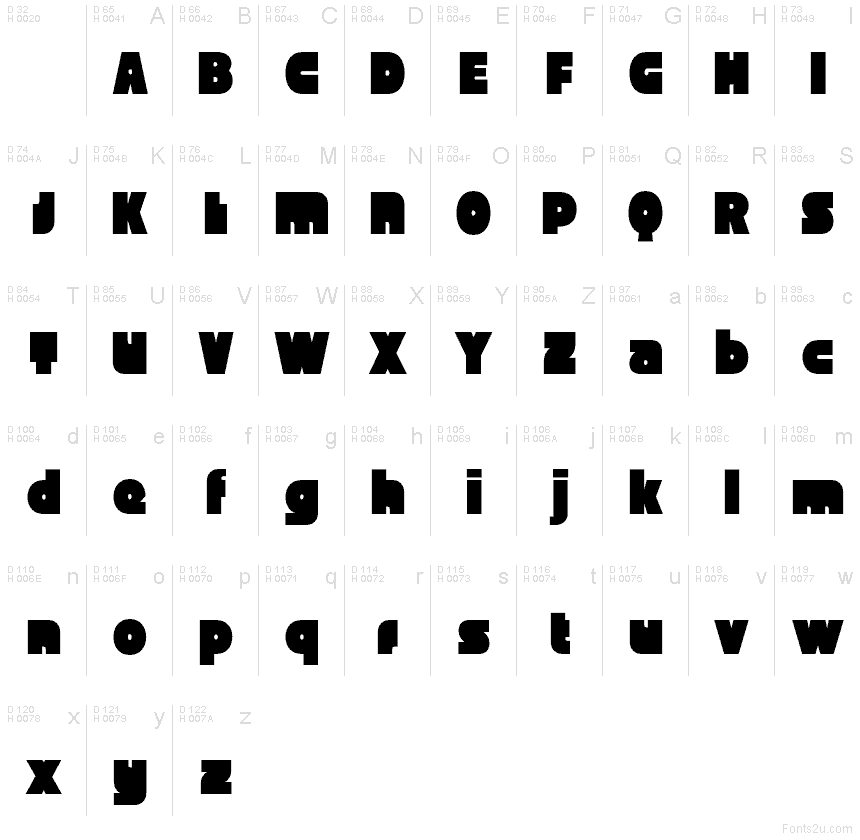
CS Anders Regular Demo
CS Anders font by Craft Supply Co. is a bold geometric display typeface. It has a minimalistic and modern structure giving it a much cleaner aesthetic. The font looks quite balanced in design making it very unique in its visual appearance as well as impact. Access this free sans serif font to give your branding or technological projects an exceptional look.
CS Anders can be used on digital designs, headlines, book covers, posters, banners, T-shirt designs and more. It would be perfect for advertisements and publications including newspapers or magazines thanks to its neat display style. The font is not suitable for heavy reading materials due to the unusual shape of characters it showcases.